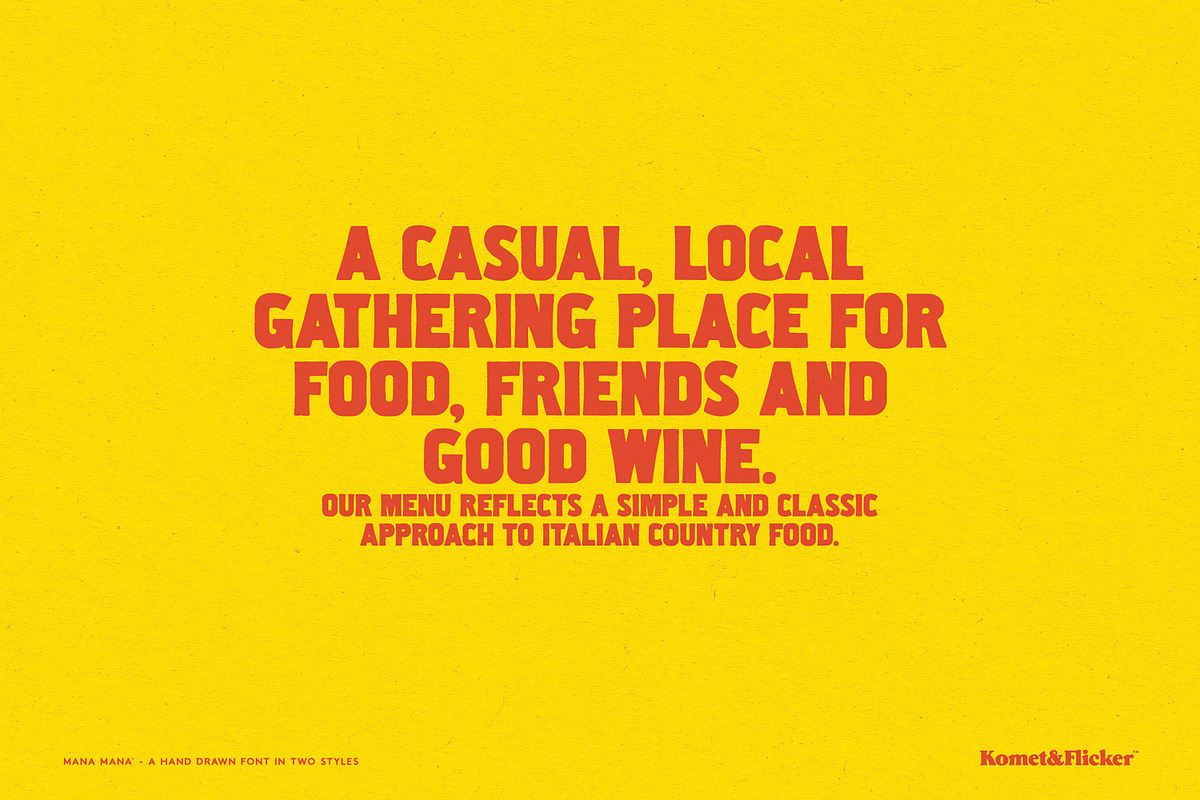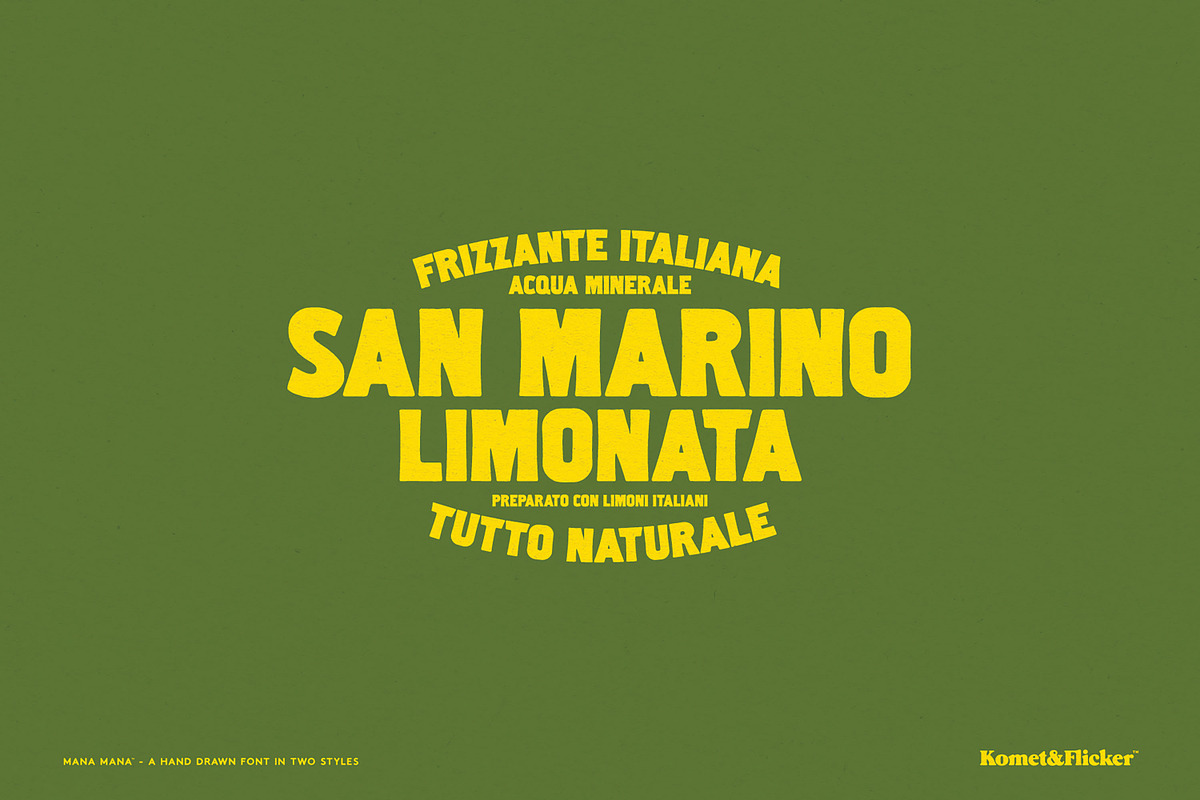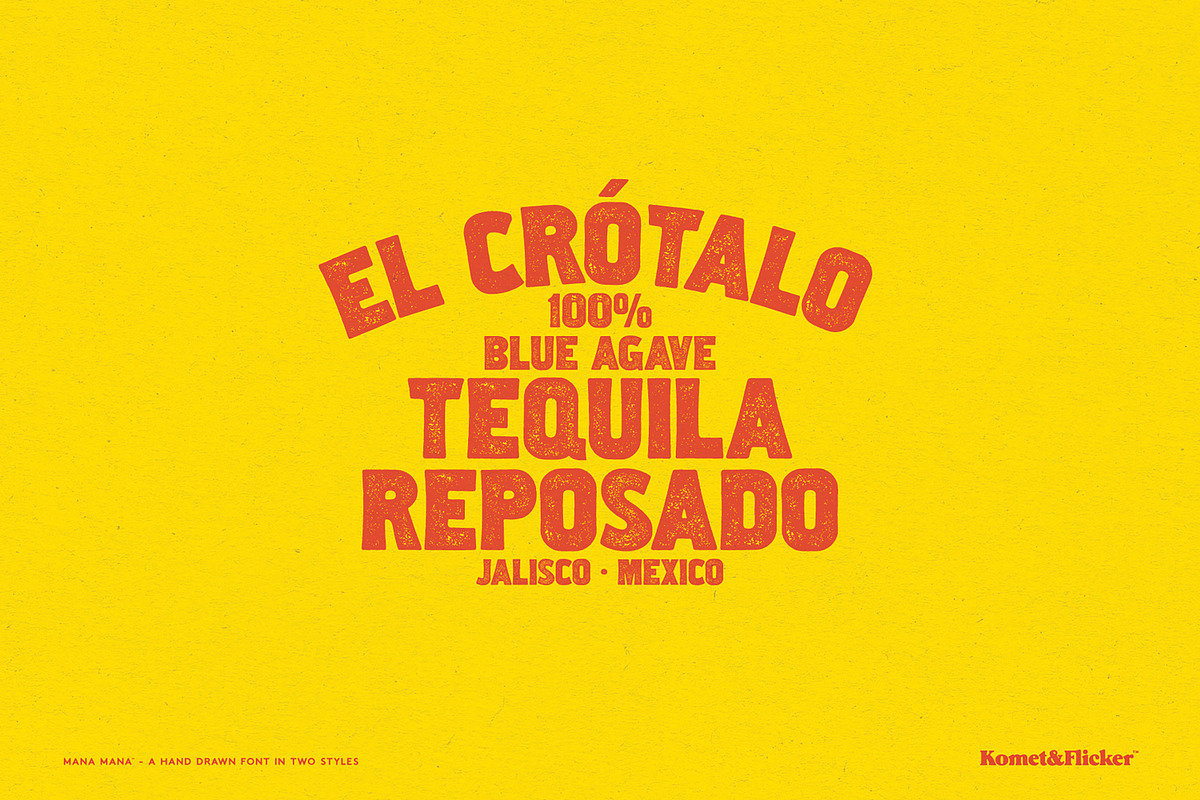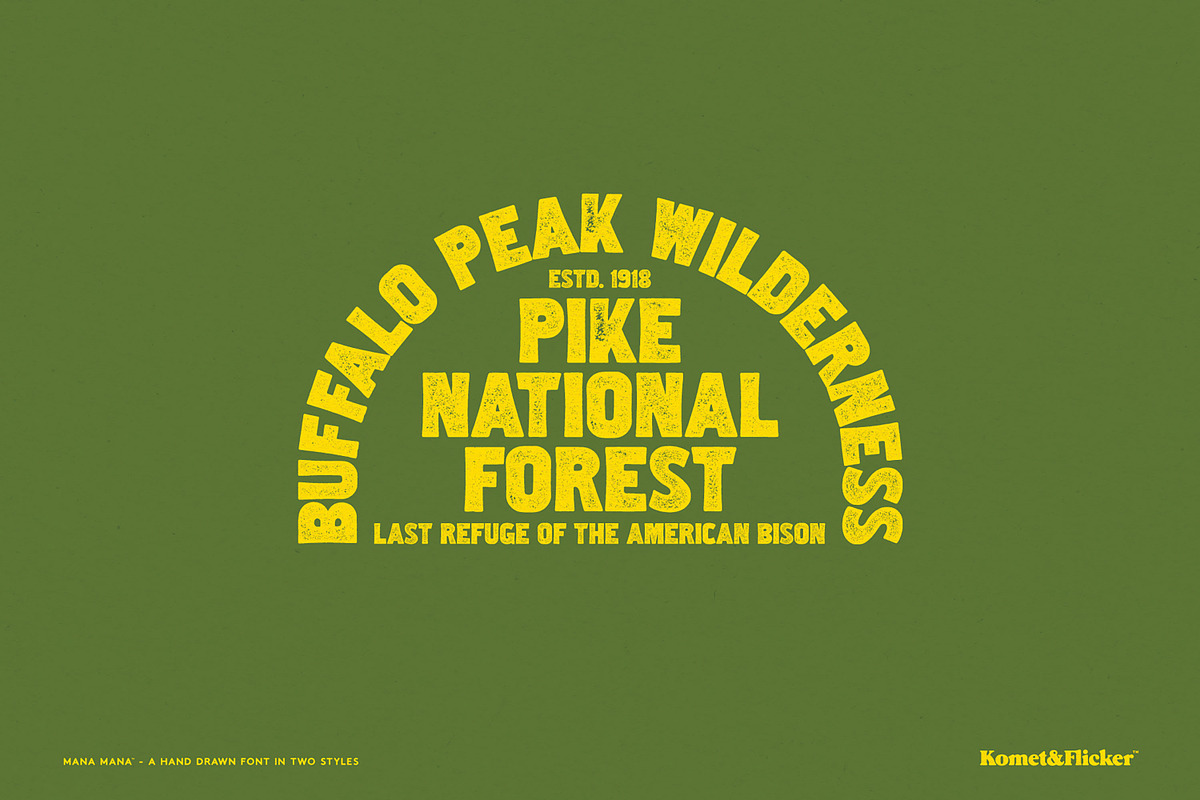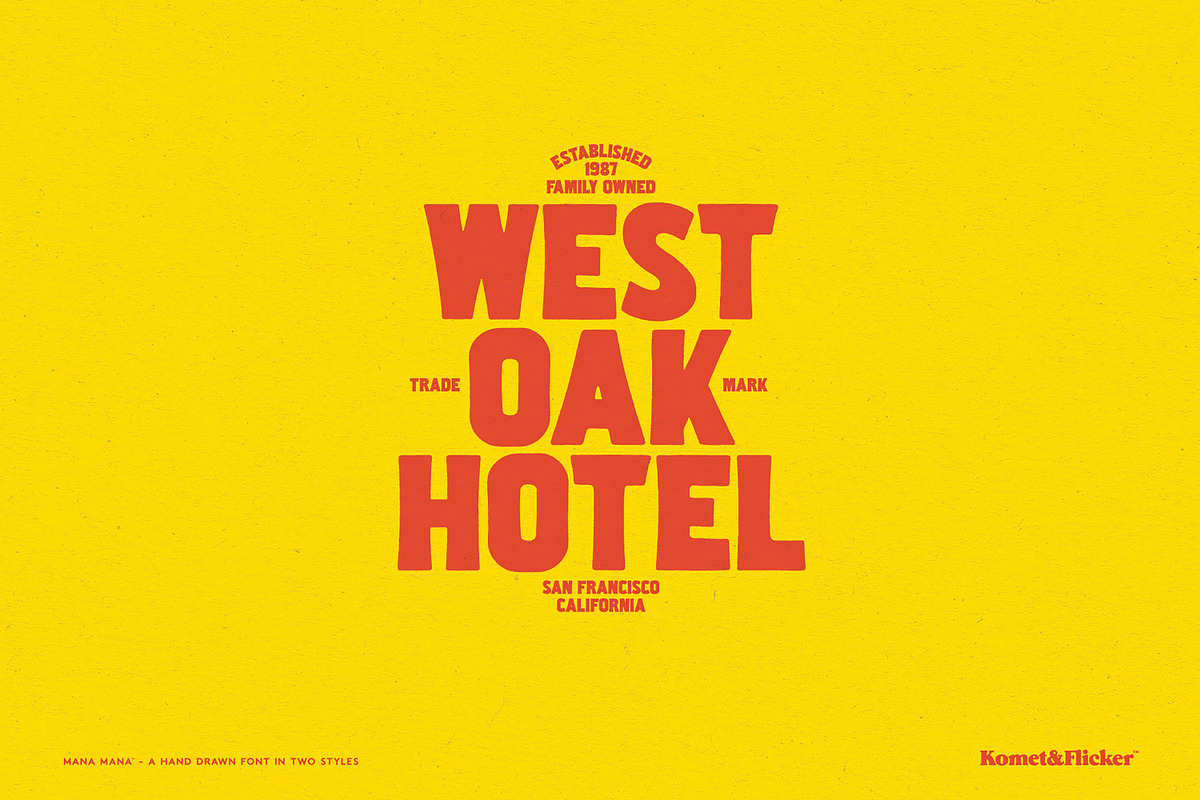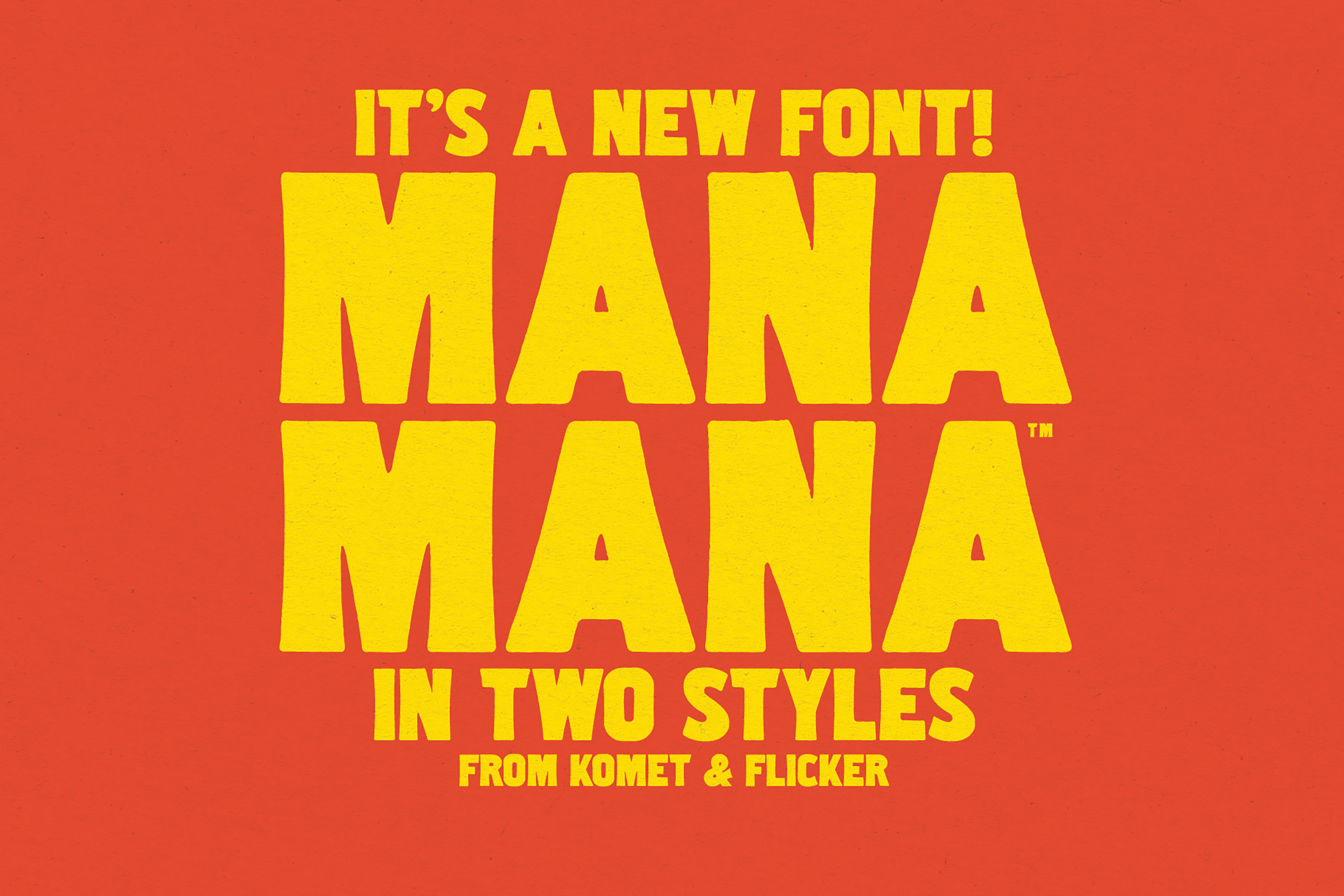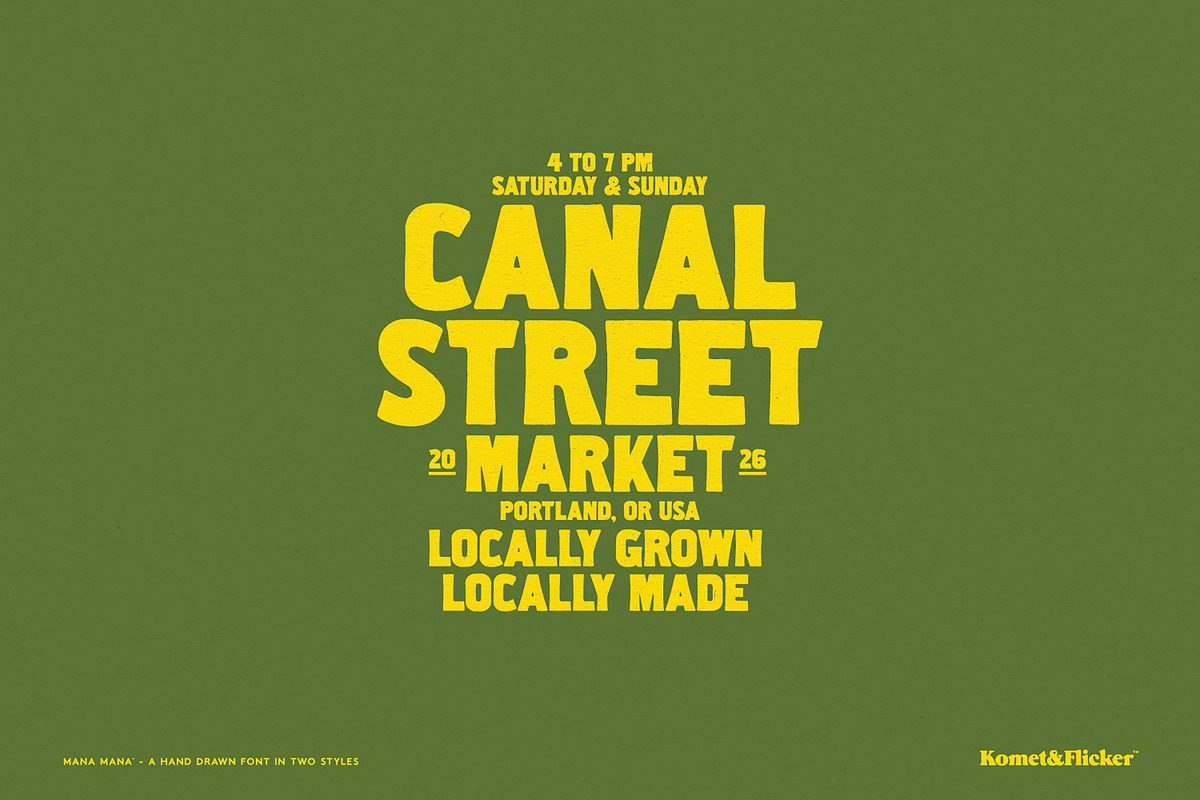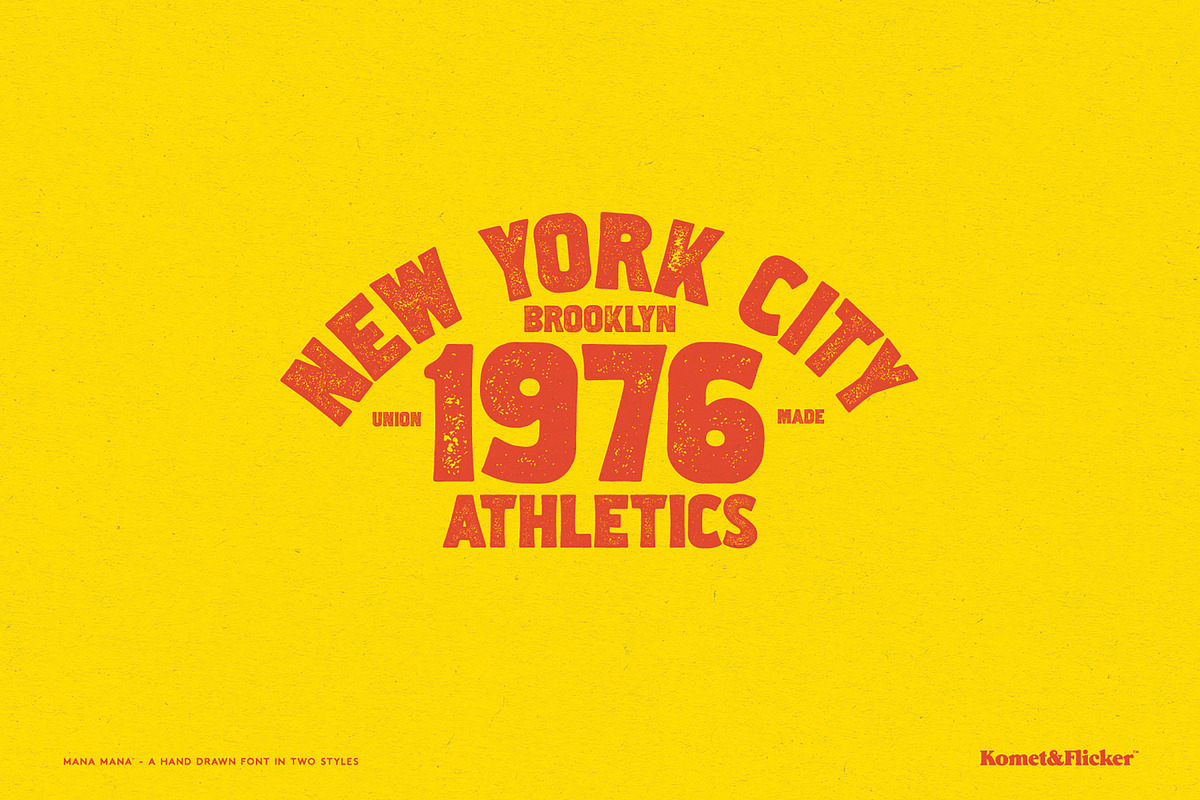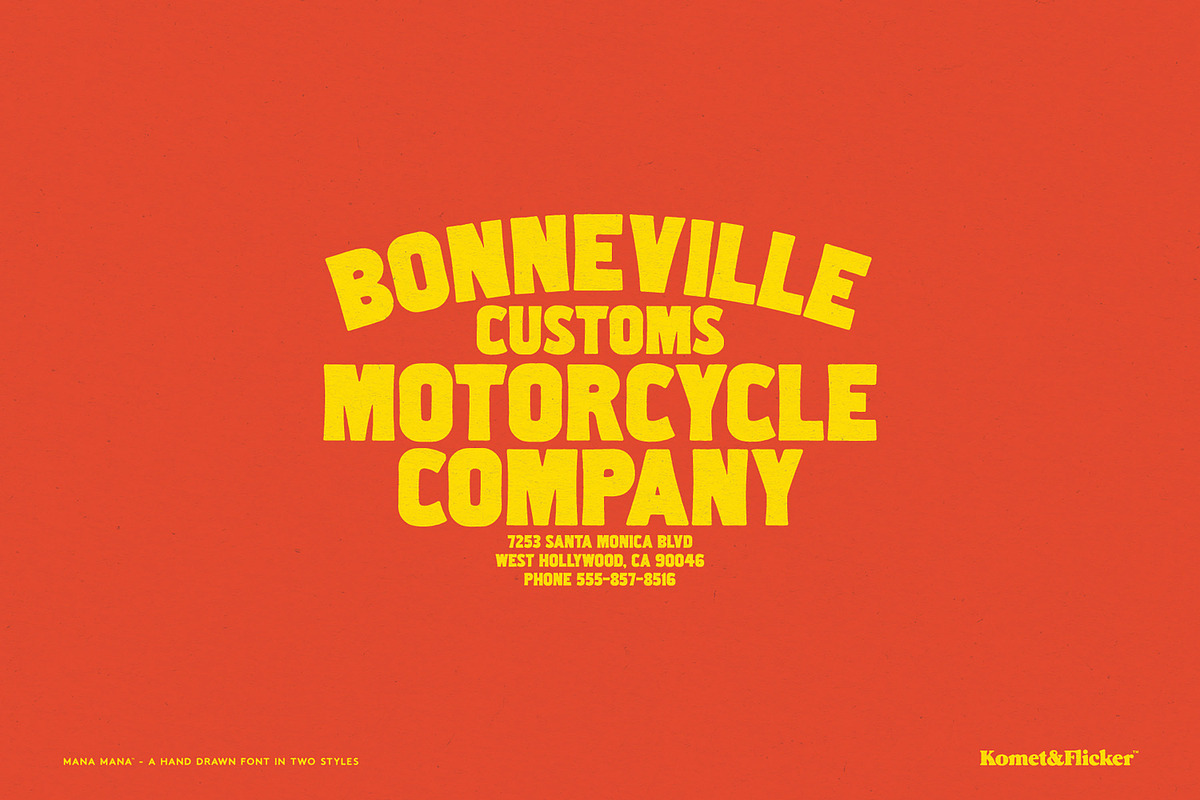
Mana Mana - A Handmade Font
Mana Mana is a bold display typeface with a rough, imperfect charm that channels the spirit of retro vintage design. Every letterform carries a sense of history – slightly worn, beautifully imperfect, and full of personality.
To give your layouts an extra touch of artistry, Mana Mana includes a set of 12 custom connecting word glyphs in two distinct styles, perfect for weaving elegant transitions between words and adding that handcrafted, editorial feel to headlines, posters, and branding.
Set of 12 custom connecting word glyphs in two styles